What colour font for wedding invitations?
I know this probably isn't a big deal, but trying to decide what colour font for our wedding invites. They are diy invitations where we print what we want on them and put them together as shown. They are a pale yellow. I thought black would just stand out way too much (although I want people to be able to read it), but maybe I'm over thinking? What colours did you use?
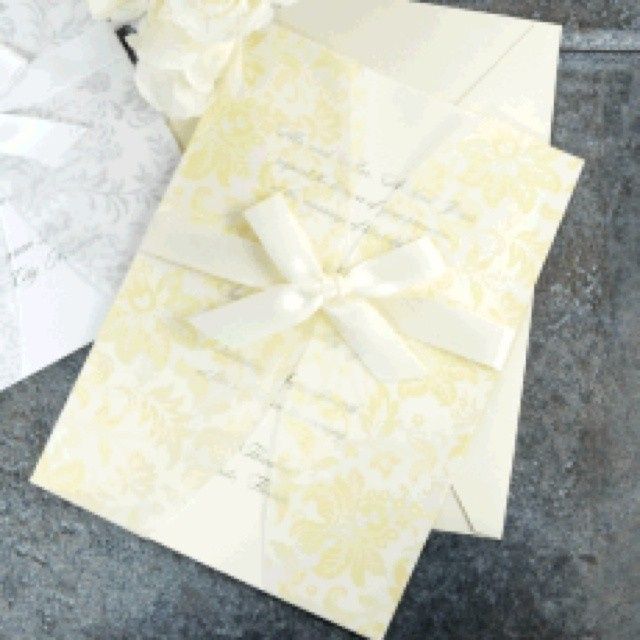
A dark gray might be a little softer than black, but still easy to read.
Something between a black and a gray would be pretty .
I agree- just about any shade of grey would look nice.
You know me....id go with plum or purpleSmiley smile 💜
I think a blue would look nice! Can you try it before you commit?